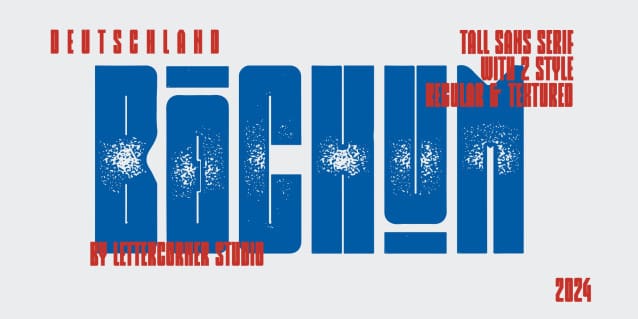
Bochum Font
Bochum Font, You can use it as a logo, badge, insignia, packaging, headline, poster, t-shirt/apparel, greeting card, and wedding invitation.